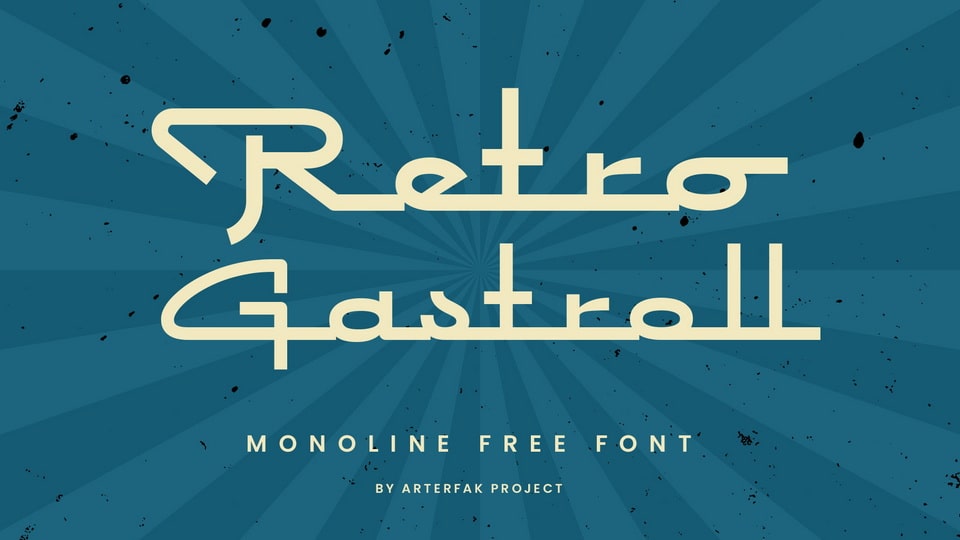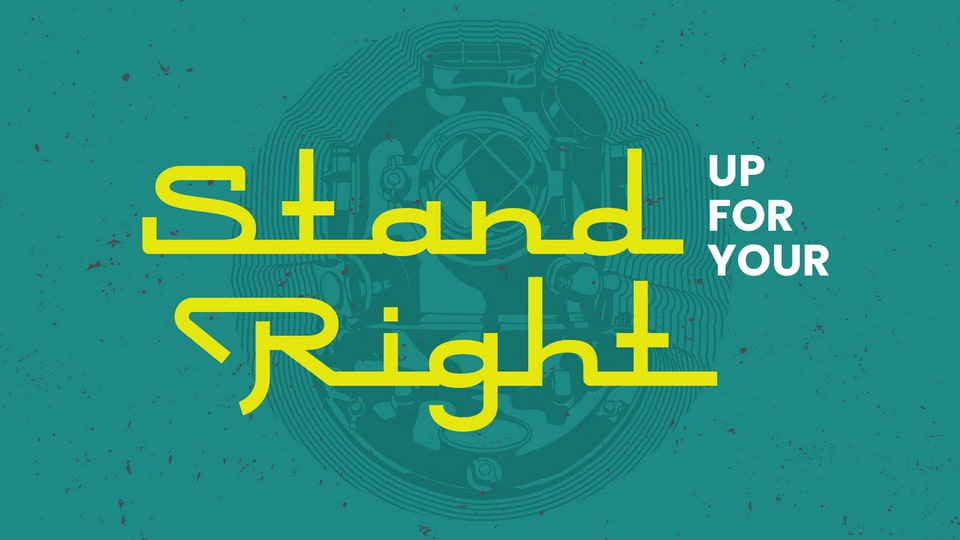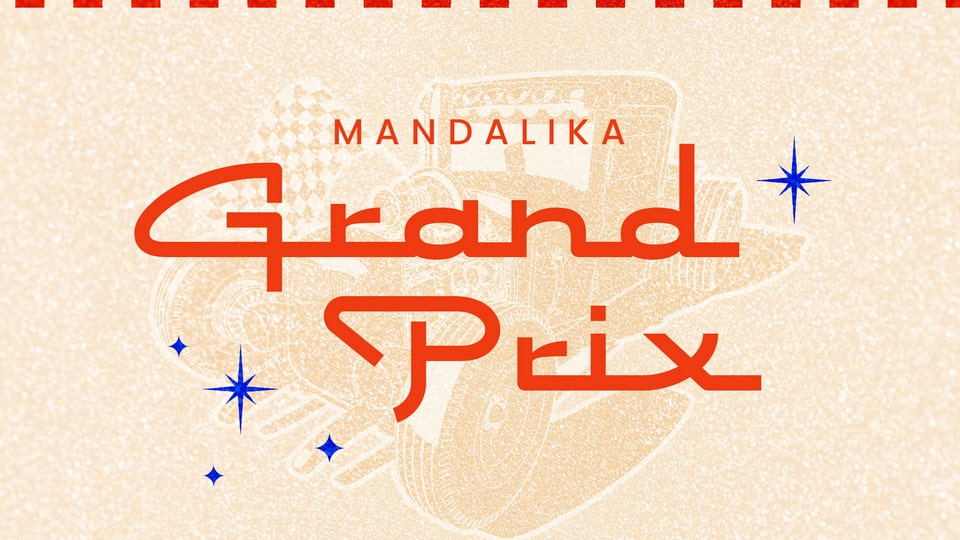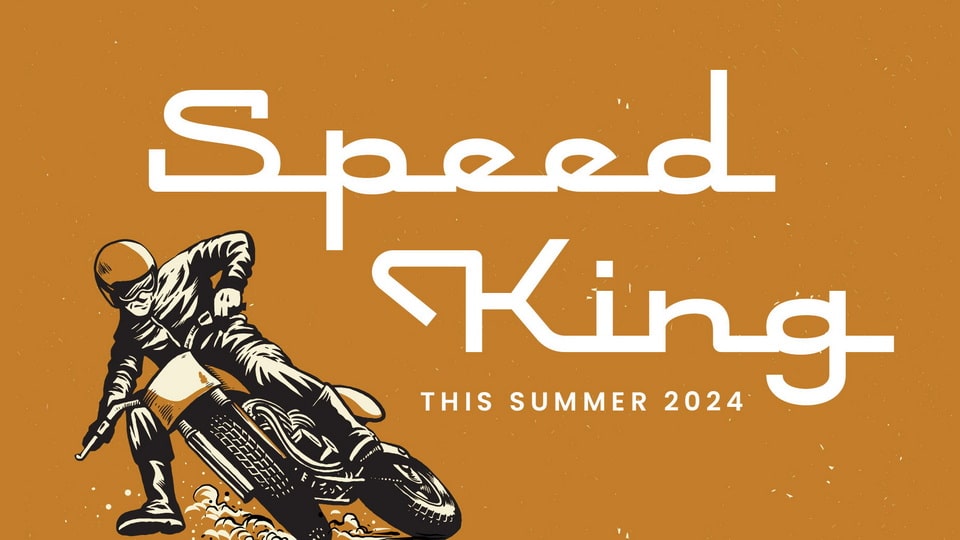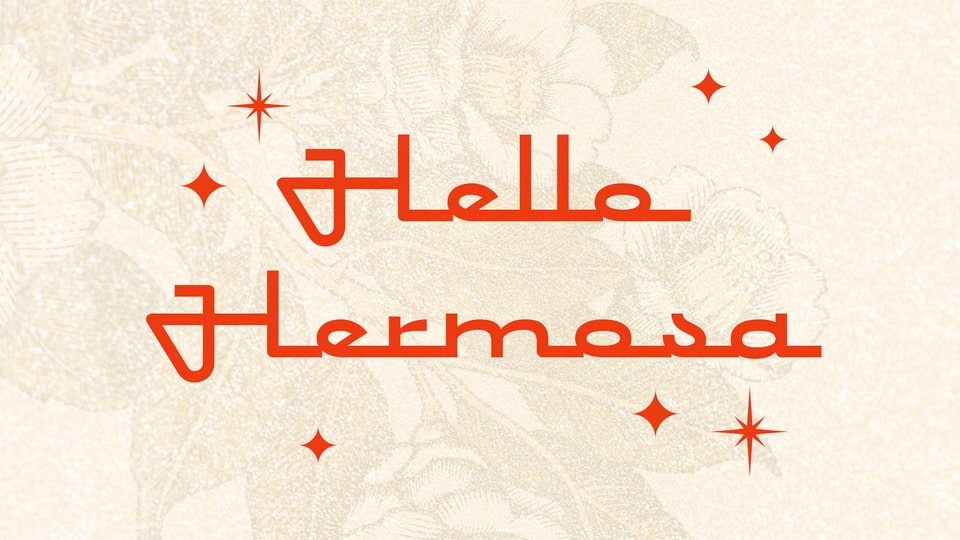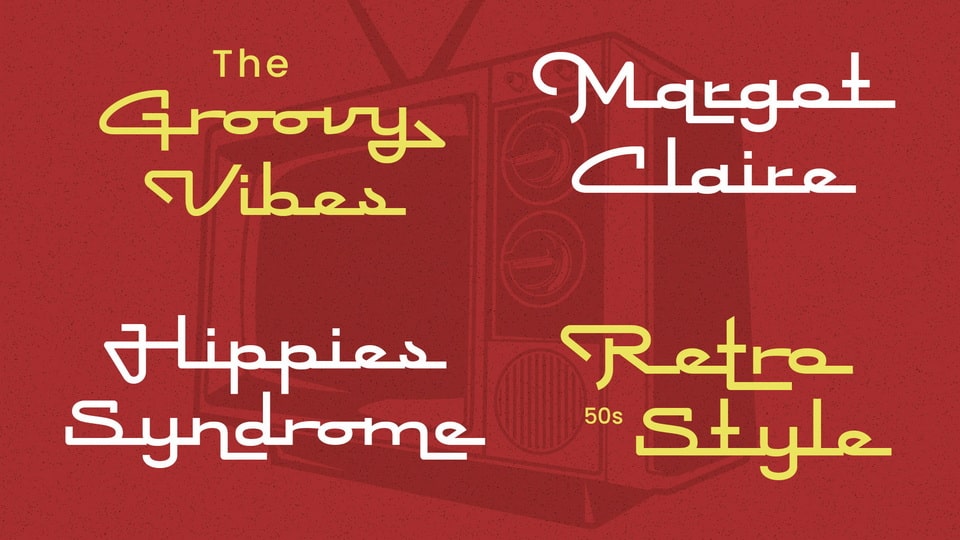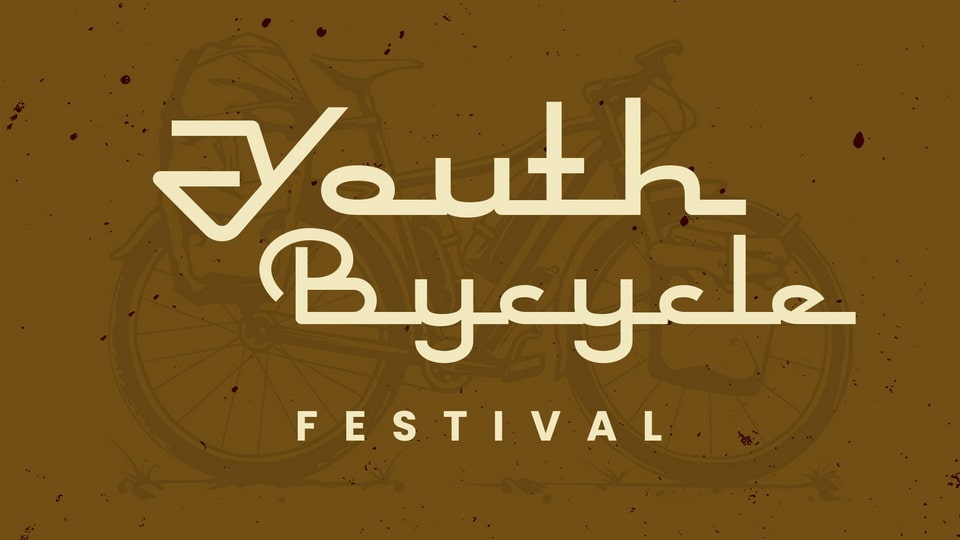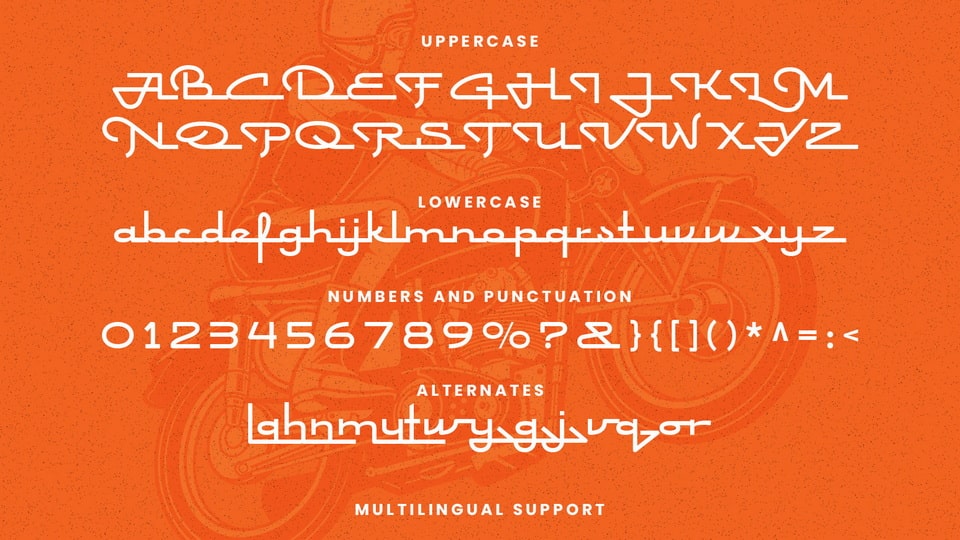
Retro Gastroll is a vintage monoline font inspired by 80s typography that features straight but dynamic lines that give a neat and relaxed impression. This font is versatile to be used on many themes such as sports, youth events, murals, café, fashion and more.